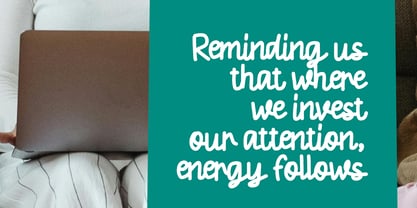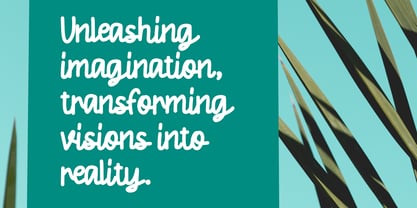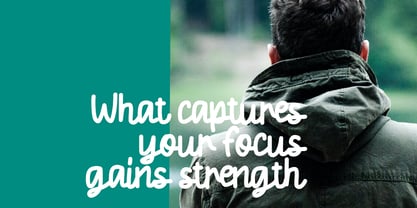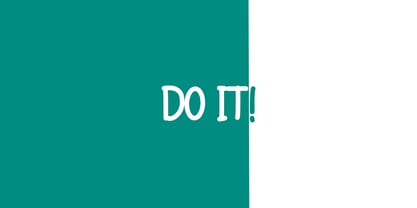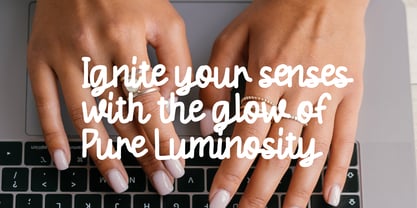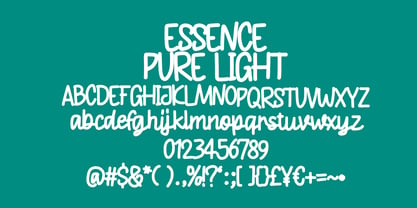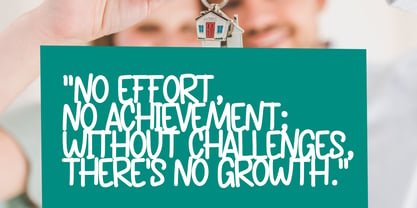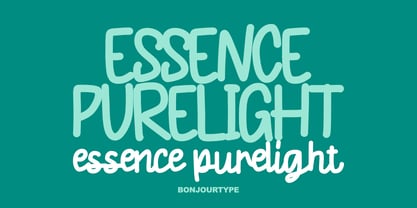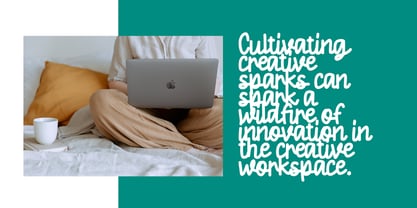
Essence Purelight
by BonjourType
Essence Purelight is a playful handwritten script font with a soft bold look and charming retro feel. Its rounded letterforms and natural flow create a fun, friendly, and eye-catching style perfect for logos, quotes, invitations, greeting cards, posters, baby apparel, branding, and social media content. Ideal for Cricut projects, stickers, shirts, and retro-themed designs, Essence Purelight brings warmth and personality to any creative project.